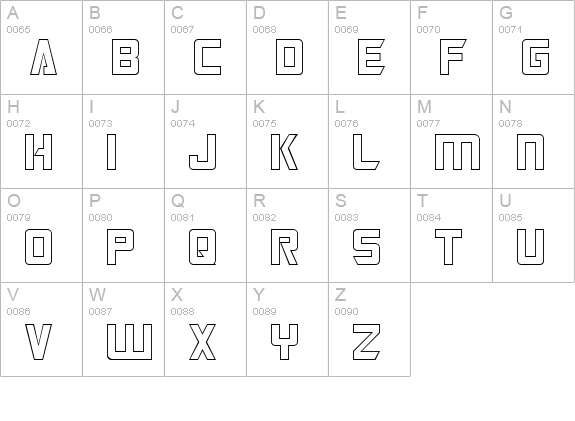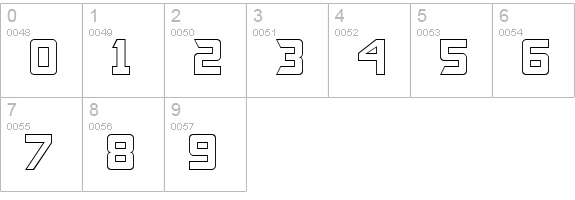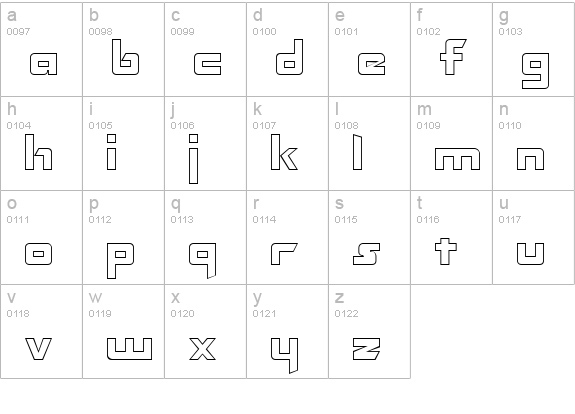
Transformers Hollow Normal Font Details
Transformers Hollow Normal is the standard, neutral variant in the Transformers typeface family \xE2\x80\x94 well suited to general body text, paragraphs, and standard typographic work.
Transformers Hollow Normal font is a sleek and futuristic typeface that brings a dynamic and modern touch to any design project. Its clean lines and sharp edges give it a bold and eye-catching appearance, perfect for grabbing attention and making a statement. This font is versatile and can be used in a variety of applications, from branding to posters to digital designs. Best of all, Transformers Hollow Normal font is available for free download at FontsMarket.com. This means you can easily access this unique and striking typeface without any cost, making it a valuable addition to your font collection. Whether you're a designer looking for a fresh new font or just someone who appreciates quality typography, Transformers Hollow Normal font is sure to impress with its edgy and futuristic style. Download it today and elevate your designs with this stunning font.